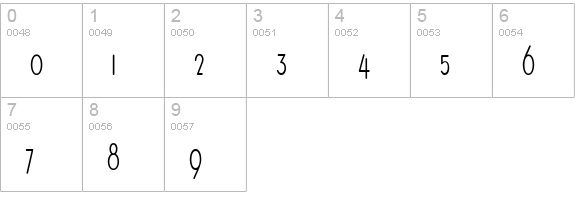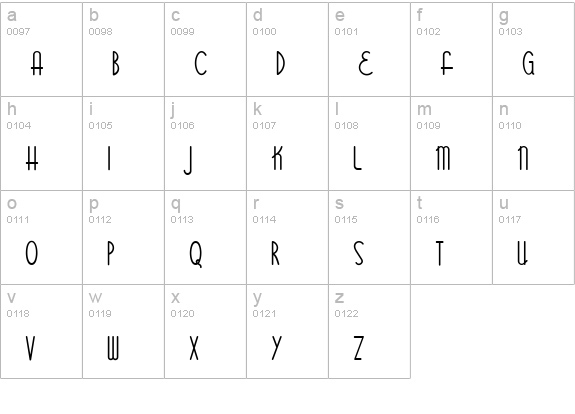
Bittersweet NF Font Details
Introducing Bittersweet NF, a font that effortlessly marries elegance with a touch of nostalgia. This beautiful typeface is a testament to the power of contrasts, as it combines delicate, flowing lines with bold, defined strokes. With its graceful curves and vintage-inspired design, Bittersweet NF captures the essence of timeless sophistication. This font is not only visually stunning but also highly versatile, making it perfect for a wide range of design projects. Whether you're working on invitations, logos, packaging, or branding materials, Bittersweet NF adds a touch of charm and refinement that can elevate any creative endeavor. What sets Bittersweet NF apart is not just its aesthetic appeal, but also its accessibility. This font is freely available to download at FontsMarket.com, allowing designers and typographers to harness its beauty without any financial barriers. This generosity emphasizes the font's commitment to fostering creativity and making high-quality design accessible to all. Embrace the bittersweet beauty of Bittersweet NF and let it lend an air of elegance to your next project. With its timeless appeal, versatile nature, and the added bonus of being freely available, this font is an essential addition to any designer's toolkit. Unlock your creative potential with Bittersweet NF and experience the magic that comes from the perfect blend of style and substance.